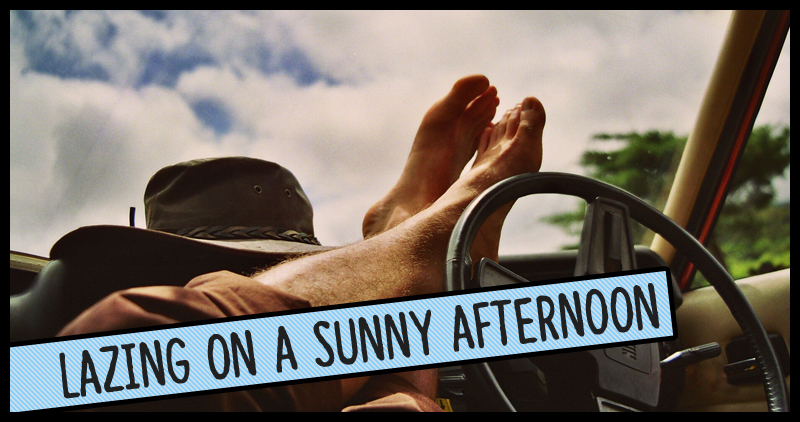
Preview and download Lazing on a sunny afternoon Font. Created by Frederic in Script Handwritten styles with Free for personal use license.
Lazing on a sunny afternoon is named after the song "Sunny Afternoon" by The Kinks, and supports a lot of languages: French, Spanish, Swedish, Icelandic, Polish, Lithuanian, Latvian, Romanian and so much more! This font is free for personal use. Commercial use: https://sellfy.com/p/KtTG/ The preview picture was originally taken by beuford00, and can be found here: http://www.freeimages.com/photo/306936 Facebook: http://www.facebook.com/fthafm | Website: http://www.fthafm.com/ |